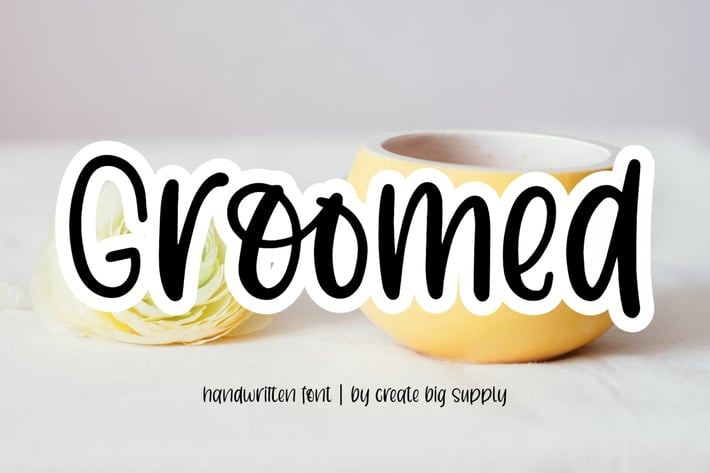
Groomed Handwriting Display Font
Groomed Font. With a natural handwriting style, perfect for all of your craft projects. This font is perfect for shirt designs, websites, svg designs, home decor, branding, blogs, logos, invitations and more.
Features:\
Uppercase & lowercase
Numbers and punctuation
Ligatures